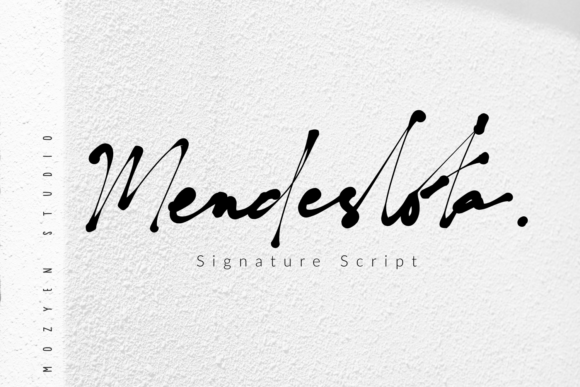
Journey into the enchanting realm of Mendeslota Font, a captivating masterpiece that will ignite your creativity and captivate your readers. Its enchanting script dances across the page, exuding elegance and timeless allure.
As you explore the depths of this extraordinary font family, you'll discover its versatility knows no bounds. It's the perfect companion for crafting invitations that whisper secrets and evoke a sense of wonder, greeting cards that warm hearts with their heartfelt messages, and social media posts that dance with grace and poise.
Mendeslota Font is a true gem for those who yearn to add a touch of magic to their digital creations. Its enchanting curves and graceful flourishes transform ordinary text into an ethereal tapestry that captures the eye and captivates the soul.
But the allure of Mendeslota Font doesn't stop at its aesthetic appeal. It's also a practical choice, meticulously designed to enhance readability. Let your words flow effortlessly across the page, creating an immersive reading experience that captivates and informs.
Its PUA encoding unlocks a world of possibilities, granting you effortless access to a treasure trove of glyphs and swashes. Unleash your imagination and explore endless creative avenues as you bring your designs to life.
With Mendeslota Font, your words will dance and sing, captivating your audience with their enchanting charm. Let it be the symphony that orchestrates your creative vision, transforming your digital creations into masterpieces that ignite the senses and leave a lasting impression.